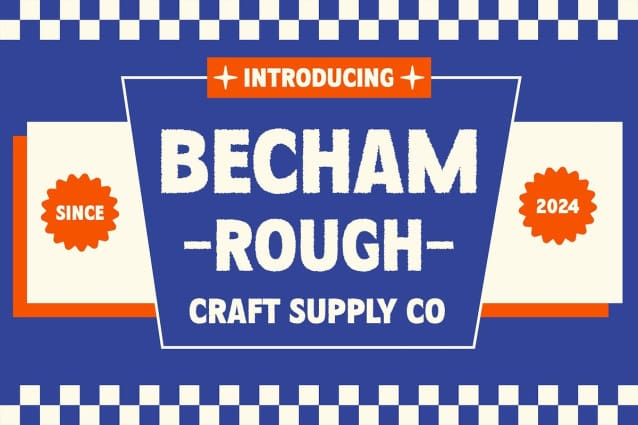
Becham Rough Font
Becham Rough Font: A Bold Display Typeface, a sans serif display style with a bold and impactful presence. Its rugged rough effect adds character and visual interest to any project.
Versatile Application Designed for versatility, This font excels in various display applications, from headlines to posters. Its boldness commands attention, making it suitable for both digital and print media.
Rough Texture for Added Depth The rough texture of This font enhances its boldness, giving it a raw and edgy appeal. This texture adds depth and dimension, making your designs stand out with a unique touch.
Captivating Visual Impact With its bold sans serif design and rough texture, This font delivers a captivating visual impact. It grabs the viewer’s attention instantly, ensuring that your message is seen and heard.
Boldness with Texture This font is a bold display typeface that combines the power of sans serif with a rugged rough texture. Its versatility and captivating visual impact make it an excellent choice for a wide range of display projects, adding boldness and character to your designs effortlessly.